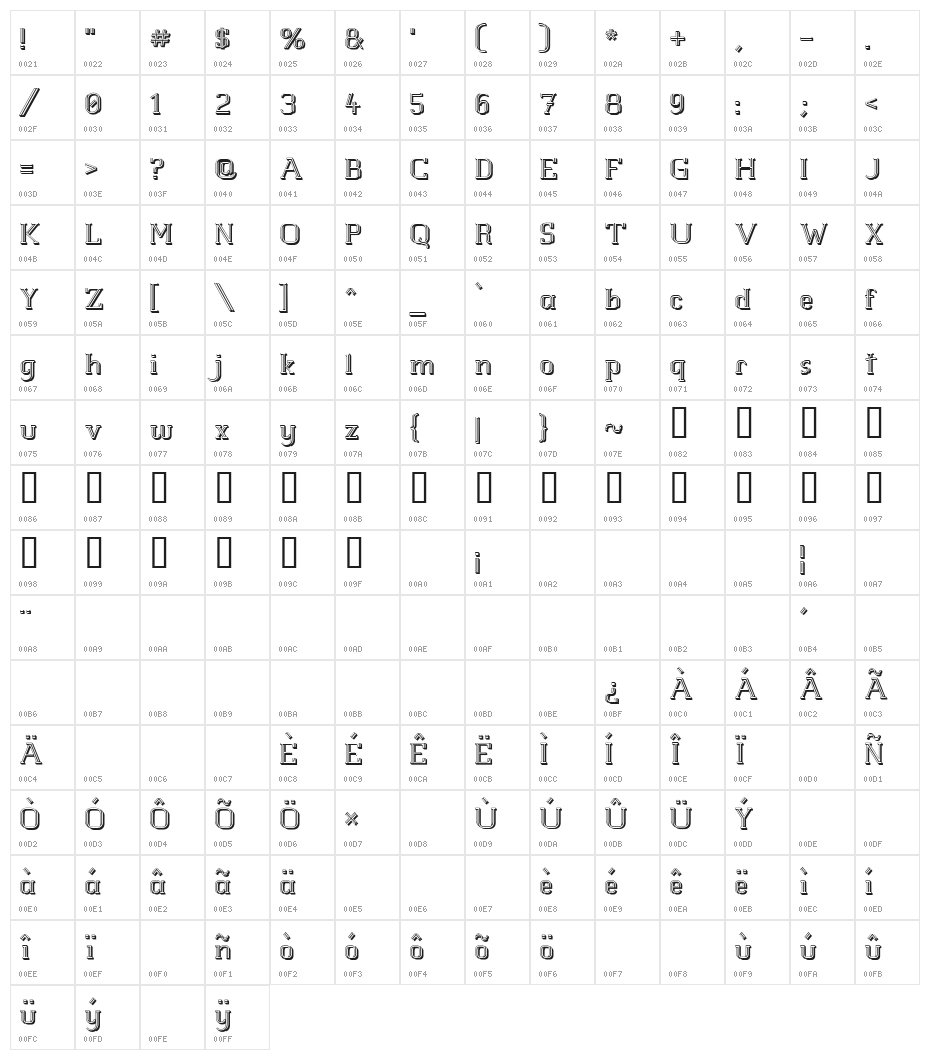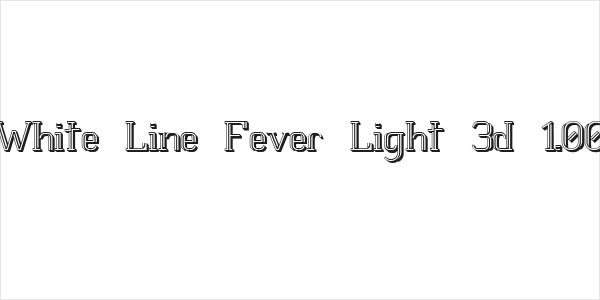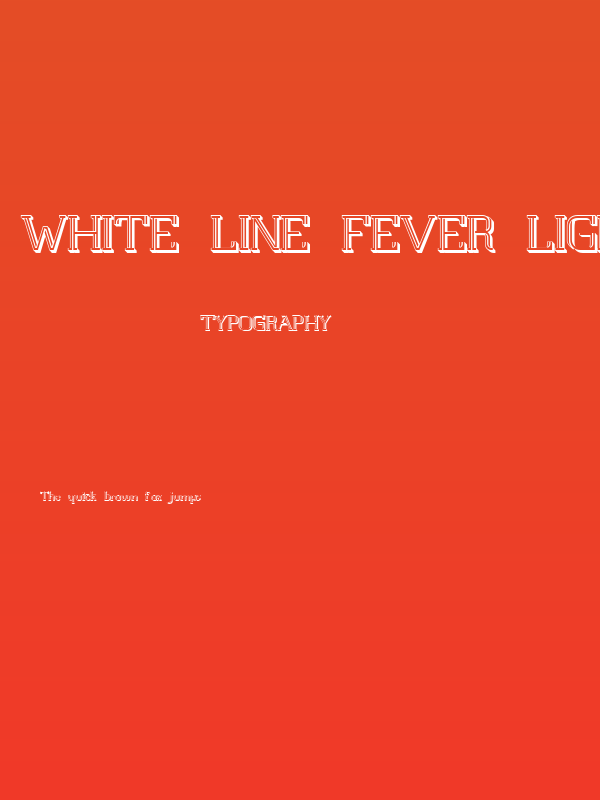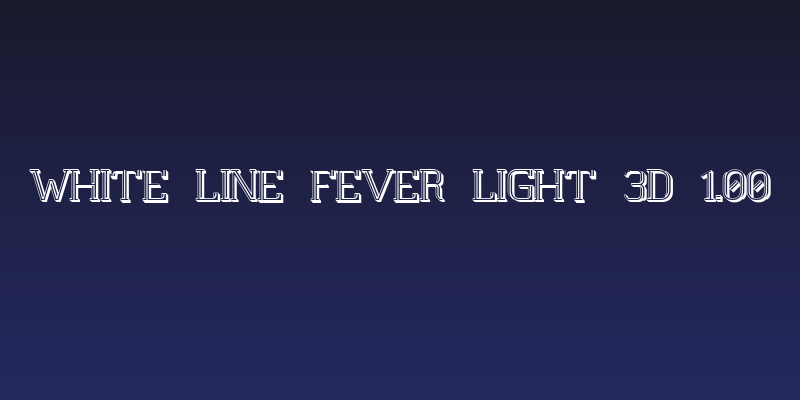
White Line Fever Light 3d 1.00 Font
White Line Fever Light 3d 1.00 Description
This font features a bold, three-dimensional outline style that gives each character a striking and dynamic appearance. The uppercase and lowercase letters maintain a consistent geometric structure, with sharp angles and clean lines that create a sense of depth and movement. The numbers and special characters follow the same design principles, ensuring a cohesive look across all elements. The font's unique 3D effect is achieved through the use of parallel lines and shadowing, making it ideal for eye-catching designs. Its modern and decorative style is perfect for projects that require a bold statement.
| Proposed Projects | Ideal for posters, logos, headlines, and any design requiring a bold, eye-catching font. |